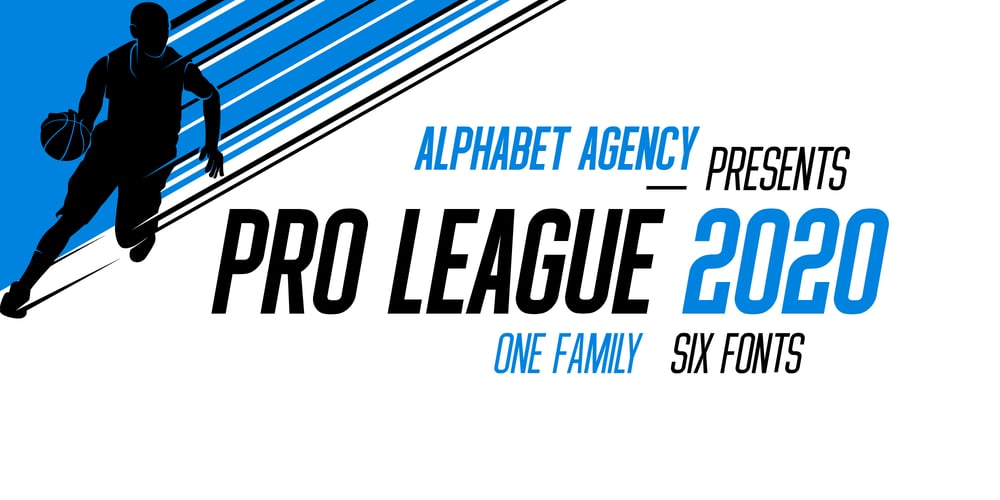
Pro League 2020 Font Family was designed by Swinn Jonathan and published by Alphabet Agency. Pro League 2020 contains 6 styles and family package options. Pro League 2020 font family is a sleek modern sans serif font family that provides italic and weight options that balance well with each other and provide various options for the user.If you are looking to present a clean, sleek professional look that is easy on the eyes – then this is a font family for you.Pro League 2020 font family contains 6 fonts – Pro League 2020 Condensed Regular, Pro League 2020 Condensed Regular Italic, Pro League 2020 Condensed Light, Pro League 2020 Condensed Light Italic, Pro League 2020 Condensed Extra Light and Pro League 2020 Condensed Extra Light Italic.